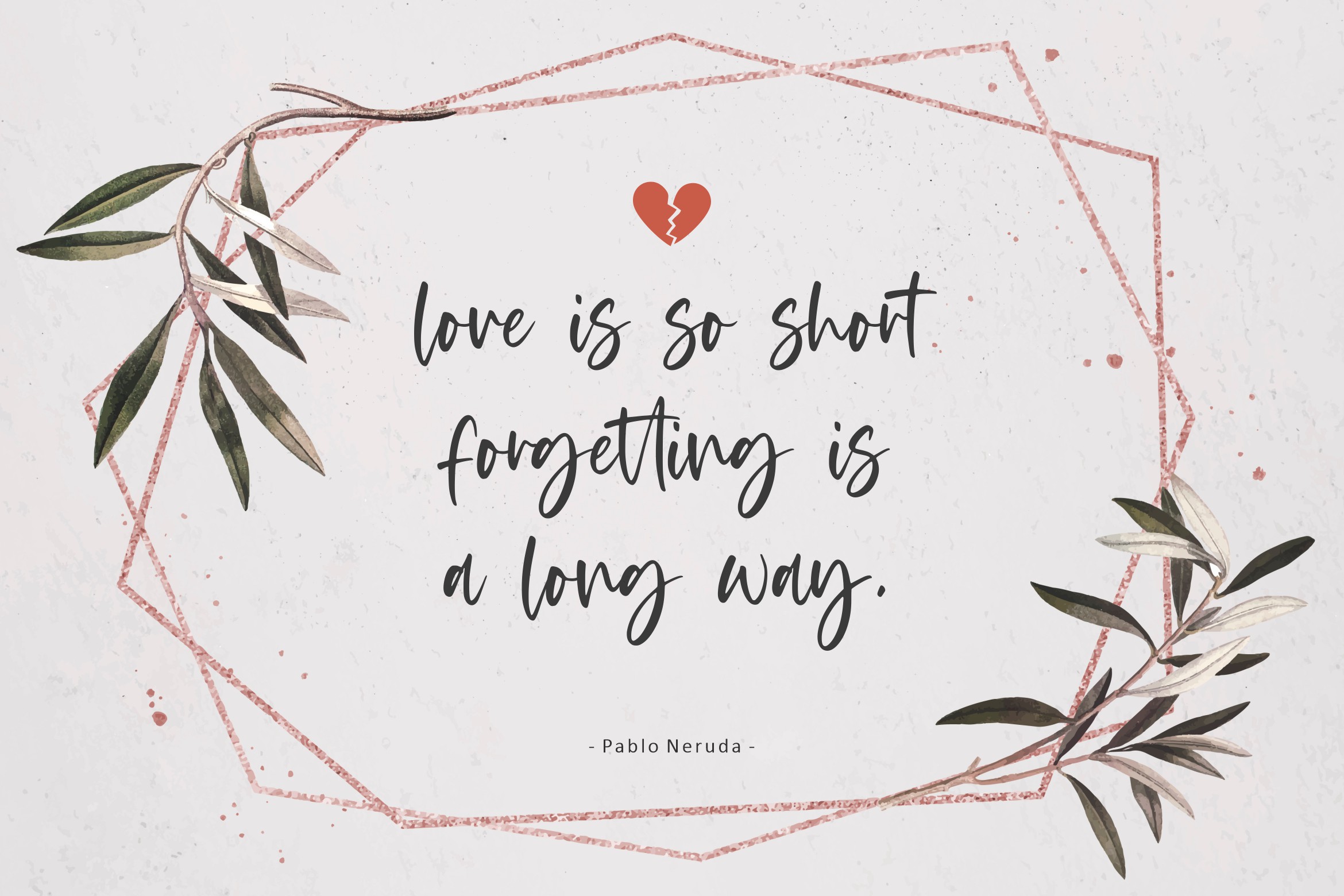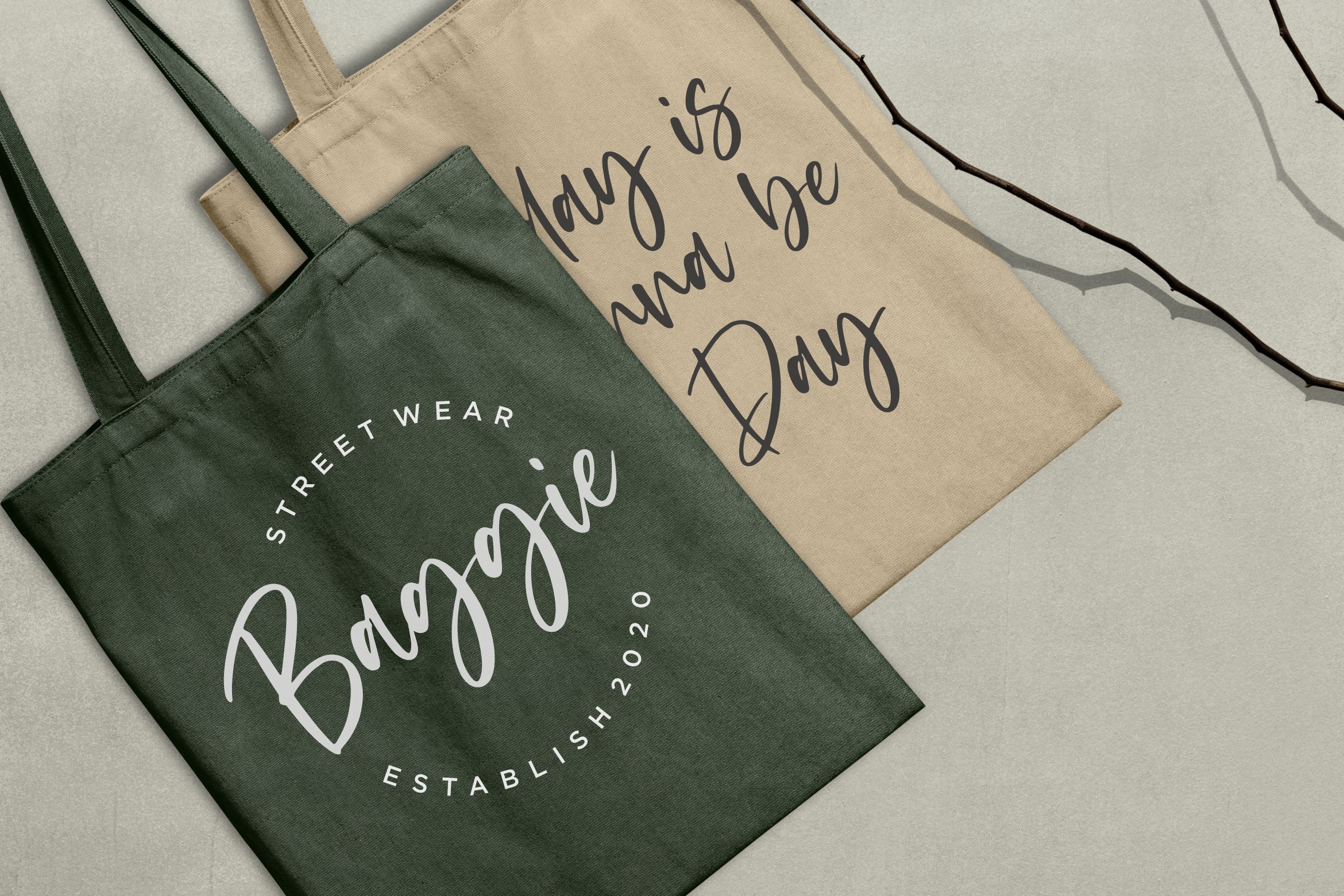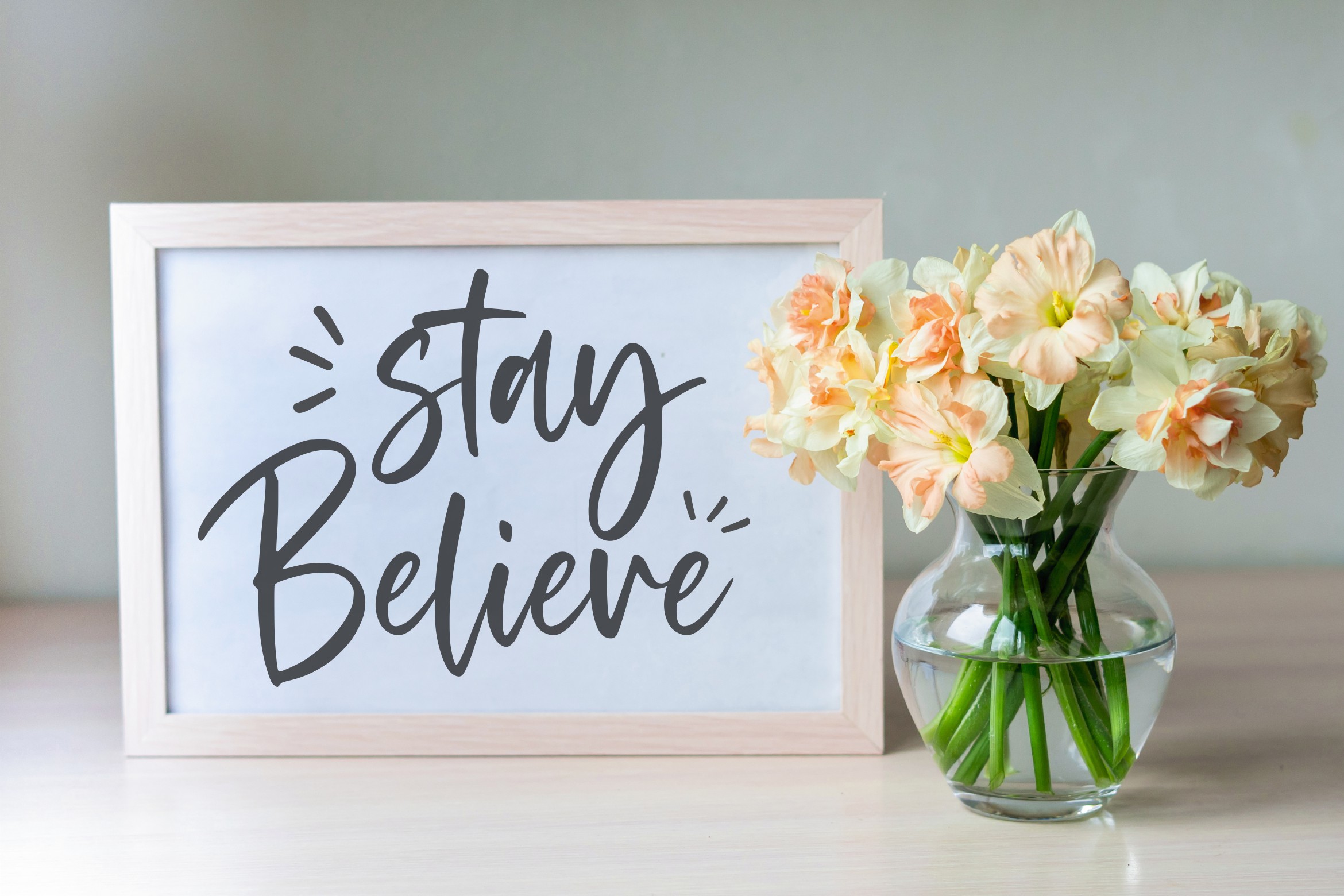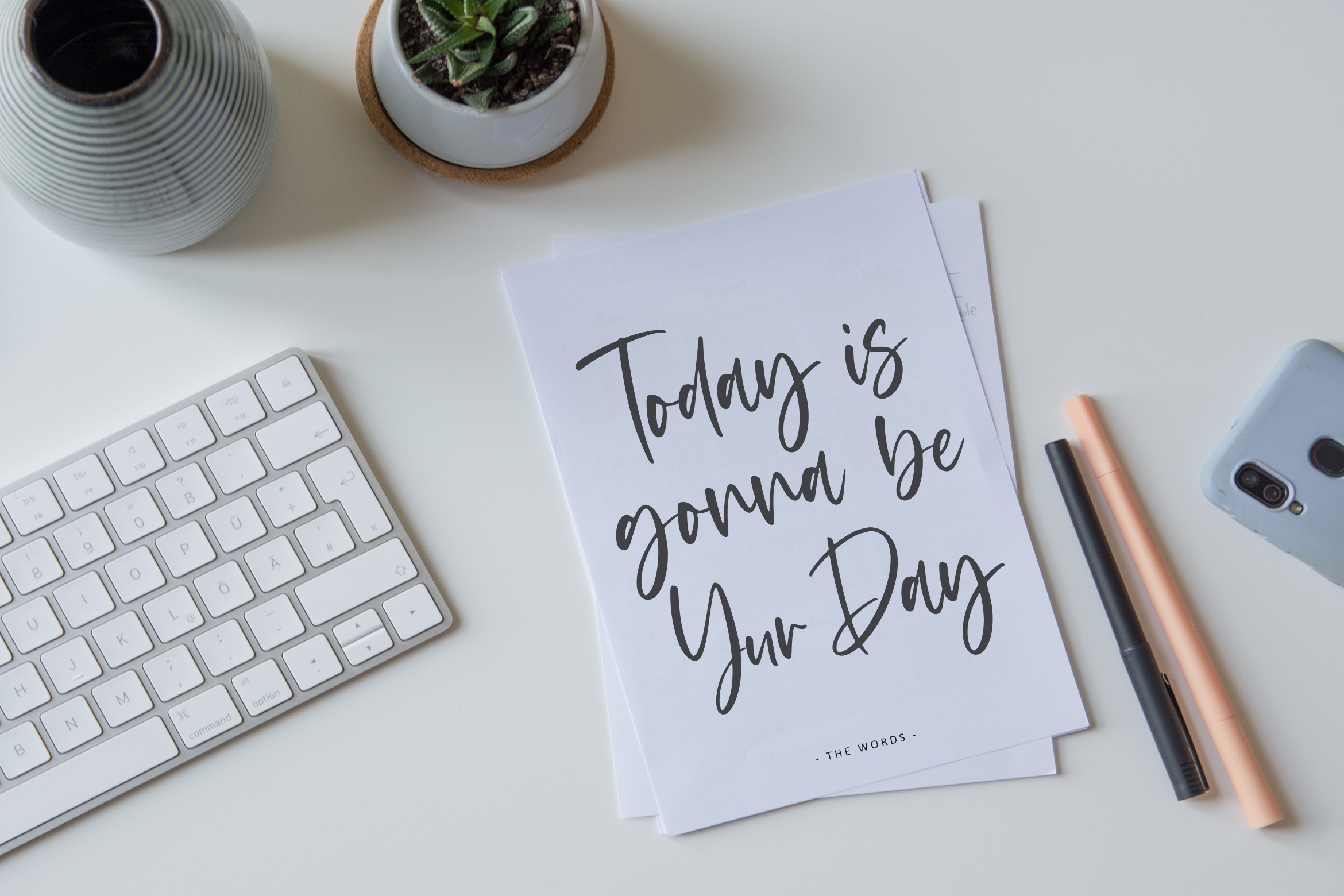
Blackbone Font
Introducing by Balpirick Studio. Blackbone Modern Calligraphy Font is a Modern Calligraphy Font. It’s a lovely and delicate script font that exudes elegance and class. This font was particularly crafted for those who need a beautiful and refreshing look to their designs.